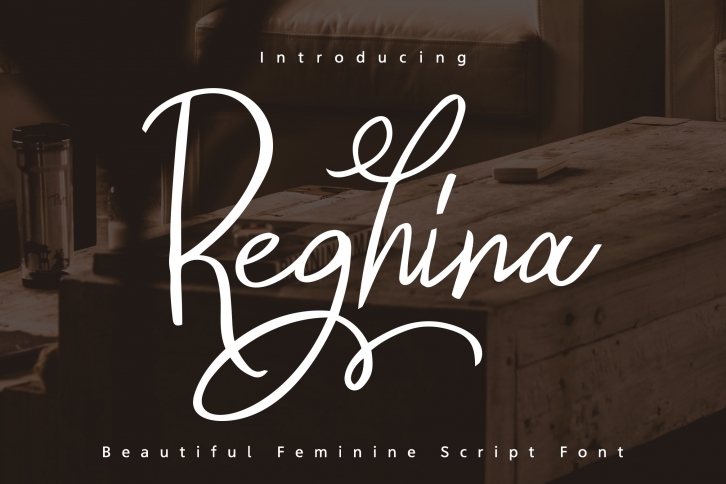
Reghina is a beautiful font that was designed by IanMikraz. It's a great choice for designers and creatives who need such a font. It was released on October 2, 2019 and the file size is 17.79 MB. Reghina may give a more youthful, expressive and casual look to your project. It is a very beautiful, refined, elegant, and high-quality font.